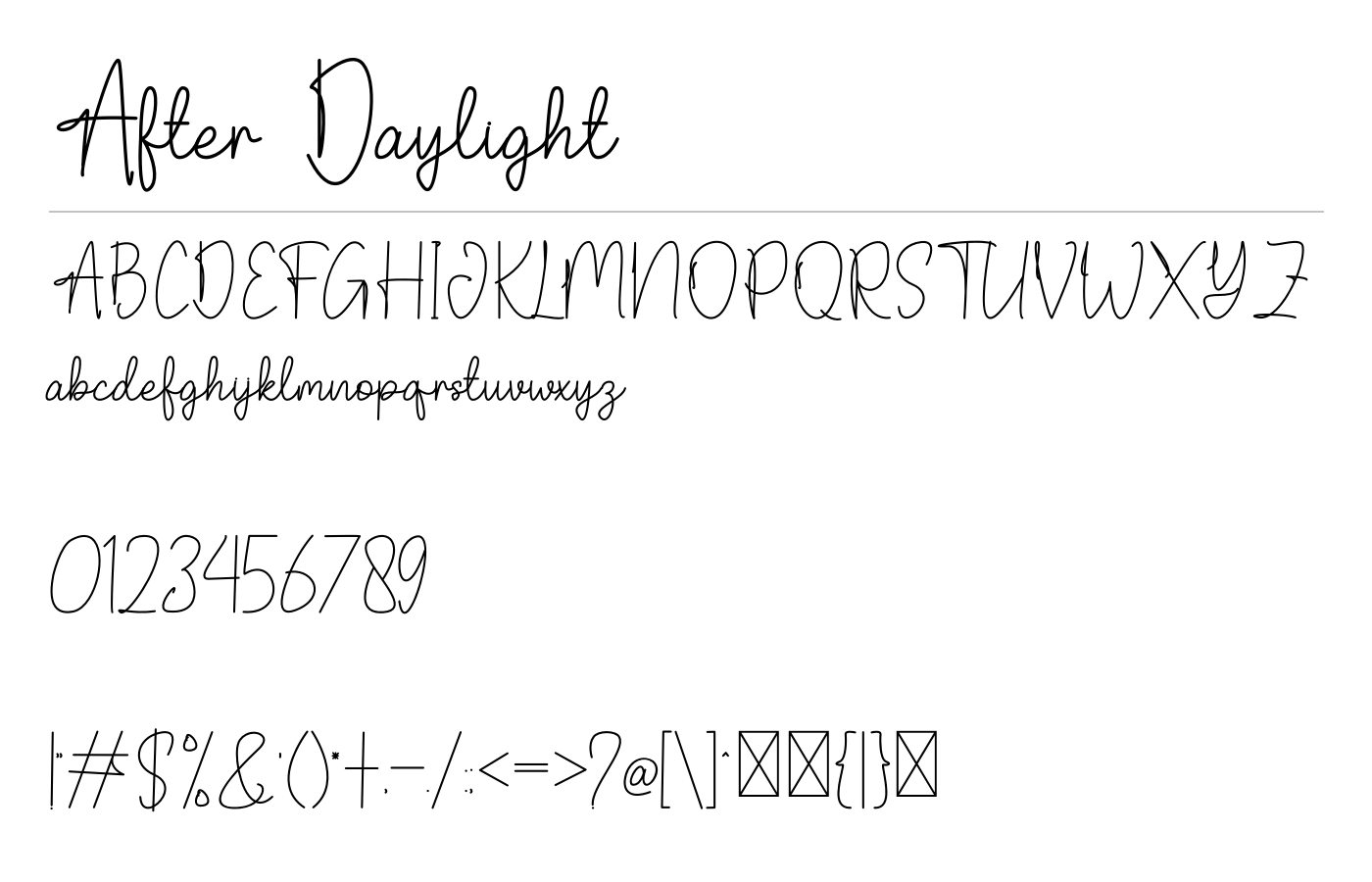
After Daylight is a delicate, hand-drawn script font with a light, airy feel and tall, slender letterforms that convey a whimsical and elegant style. Its thin lines and playful curves make it perfect for personal branding, invitations, and creative projects where a gentle, artistic touch is desired. This font works well in headlines or accent text, lending a modern yet warm personality to designs that seek a handwritten, approachable charm.
After Daylight Font
About After Daylight Font